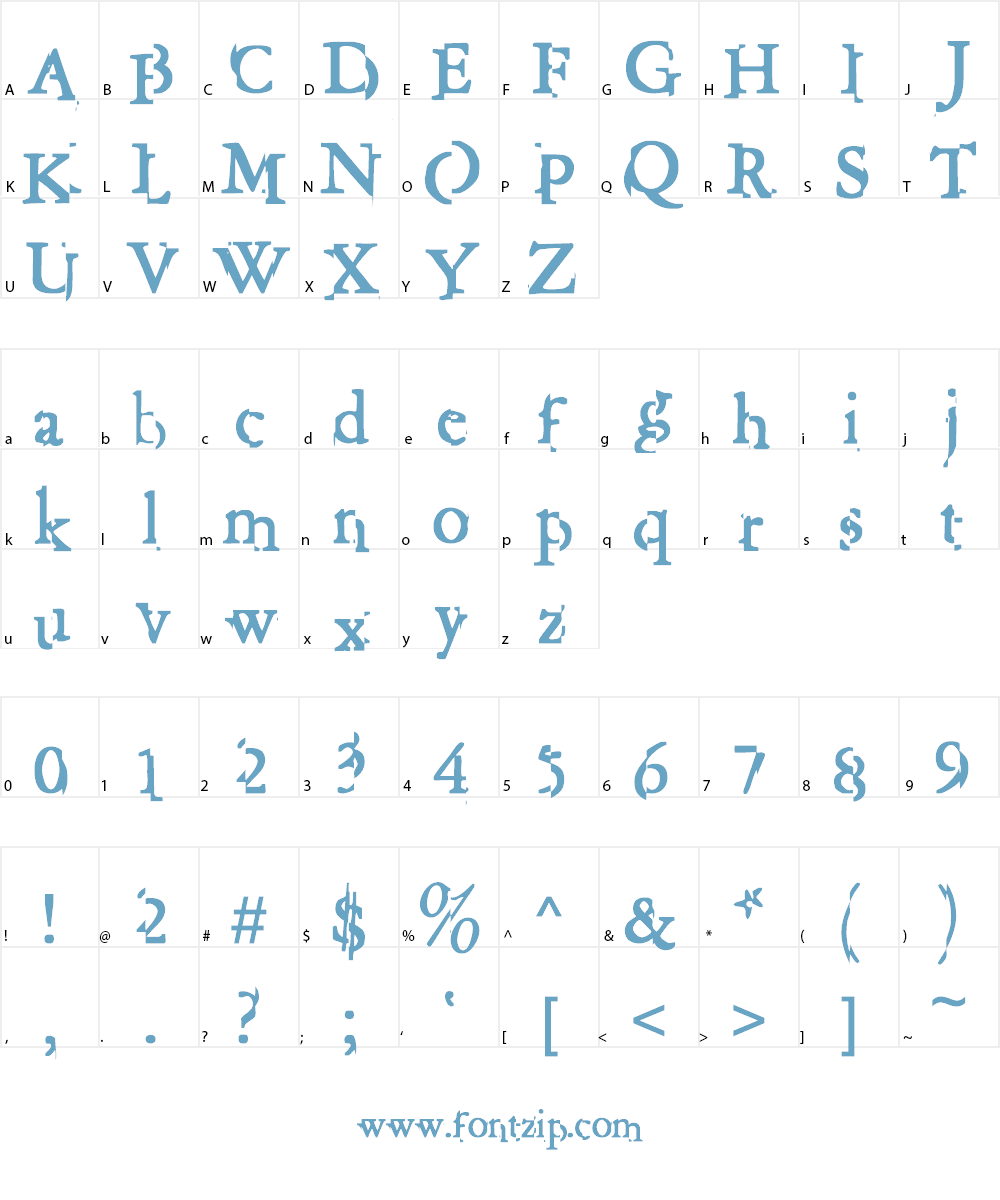
The origins of this font are a sample sheet of an American Type Founders Garamond font printed in 1934, an unusually tart bottle of French table wine, and a relaxing evening discussing literary deconstructionist theory with some very confused friends of mine from the University.